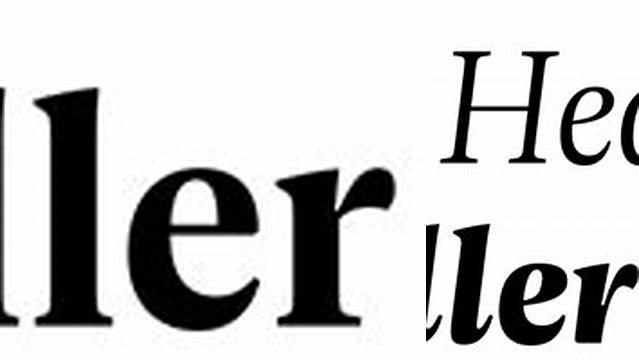
Hey guys, are you on the hunt for a super cool font that's both eye-catching and readable? Look no further because we're diving headfirst into the world of the Geller Headline Semibold font! And the best part? You can get a free download! This article is your ultimate guide to snagging this awesome font, exploring its features, and discovering where it shines. Whether you're a designer, a blogger, or just someone who loves playing around with fonts, this is your one-stop shop. So, buckle up, and let's get started on this font-tastic adventure! We'll cover everything from the nitty-gritty details of the font itself to where to find that free download link. Let's explore the world of typography and see why the Geller Headline Semibold font is a great choice for your creative projects. Ready to level up your design game? Let's do this!
Geller Headline Semibold Font: An Overview
Alright, let's kick things off with a detailed look at the Geller Headline Semibold font. What makes this font so special, and why is it a popular choice among designers? The Geller Headline Semibold is known for its strong presence and clean lines, making it perfect for headlines and titles. Imagine a font that grabs attention instantly but remains easy to read – that's the magic of Geller Headline Semibold! Its semibold weight strikes the perfect balance, not too heavy and not too light, ensuring readability without sacrificing impact. The font's design is modern and versatile, lending itself well to various applications, from website headers to print materials. If you're working on a project that demands a bold statement, the Geller Headline Semibold is your go-to font. You will find it perfect for logo designs, posters, and any other creative endeavor where you want your message to pop. Its versatility and stylish appearance make it a favorite among designers and creatives. The font has a wide range of applications. So, whether you're creating promotional materials, designing a website, or working on personal projects, this font is sure to impress.
Characteristics and Design Elements
Let's dig deeper into the specific design elements that give the Geller Headline Semibold font its unique character. The font features a blend of geometric and humanist influences, creating a design that is both modern and approachable. The Geller Headline Semibold font has a clean and uncluttered appearance, with well-defined letterforms. The clarity of the design makes it highly readable even at a glance. This font's semibold weight provides a balance of impact and readability, making it a great choice for both headlines and body text. The consistent stroke weights contribute to a cohesive and polished look. The spacing and kerning of the font are carefully calibrated to enhance readability and visual appeal. This attention to detail ensures that the text flows smoothly and is easy on the eyes. Its versatile design makes it adaptable to a variety of projects. The design's modern aesthetic and clean lines make it ideal for communicating a message clearly and stylishly. This detailed approach to design ensures that it can be used across a variety of applications. In short, the Geller Headline Semibold font is more than just a font; it's a carefully crafted design that delivers both style and functionality.
Where to Use Geller Headline Semibold
So, where can you actually use the Geller Headline Semibold font to make your projects shine? The answer is: pretty much everywhere! Its versatility makes it ideal for a wide range of applications. This font is perfect for headlines, titles, and subheadings. Imagine creating a website and using this font for your headers. It will give it a professional and clean look. The strong presence of the font also makes it a great choice for branding and logo design. Think about creating a logo for your business and using this font. This will give your brand a distinctive look that’s instantly recognizable. It’s also fantastic for print materials like posters, flyers, and brochures. You can use it to grab attention. From social media graphics to presentations, the possibilities are endless. If you're working on a project that demands attention, this font is your best friend. This font can be used for all kinds of personal projects. Get creative and apply this font to your projects!
Advanced Features of Geller Headline Semibold
Let's dive into some advanced features of the Geller Headline Semibold font, exploring how you can use it to create really cool designs. The font's design is not just about aesthetics; it also includes various technical aspects that can enhance your work. This font typically includes a range of character sets, covering Latin, Cyrillic, and sometimes Greek alphabets. This means that if you are designing for a global audience, this font can be a great option. Many fonts today include OpenType features, such as ligatures and stylistic sets. You can use ligatures to create a more polished look for your text. You can adjust the character spacing and kerning to fine-tune the look of your text. Adjusting the font size is also important. You can use a variety of design software to experiment with the advanced features. You can easily experiment with the font and see what works best for your project. You can create beautiful, professional-looking designs with these advanced features. The font's advanced features can take your design to the next level!
Kerning and Spacing Tips
Okay, guys, let's talk about kerning and spacing – two crucial aspects that can seriously elevate your use of the Geller Headline Semibold font! Kerning refers to the adjustment of space between individual letters. Spacing, on the other hand, relates to the overall space between words. When using the Geller Headline Semibold, pay close attention to how the letters flow together, especially in headlines. Some letter combinations might need a bit of tweaking to look balanced and visually appealing. Kerning can prevent awkward gaps. You can adjust the spacing to enhance readability. Experiment with small adjustments to see how they affect the overall look. Different design software will have different kerning and spacing tools. You can get a feel for how the font works by practicing. You can create polished, professional-looking designs with these tips! By mastering kerning and spacing, you can create visually stunning designs that are easy to read.
Using Ligatures and Alternate Glyphs
Alright, let's explore how to use ligatures and alternate glyphs in the Geller Headline Semibold font! Ligatures are special characters where two or more letters are joined together to create a more refined look. If the font includes ligatures, you can use them to enhance the visual appeal of your text. Alternate glyphs can give your design a unique touch. Alternate glyphs are additional designs of characters. If the font includes alternate glyphs, you can access them in your design software. Different design software will provide different ways to use ligatures and alternate glyphs. The use of ligatures and alternate glyphs can add a polished look. You can give your designs a distinctive character. These features will make your design more visually appealing and unique. By mastering the use of ligatures and alternate glyphs, you can take your designs to the next level.
Conclusion: Leveraging Geller Headline Semibold in Your Designs
Alright, guys, we've covered a ton of ground today, exploring the fantastic Geller Headline Semibold font! We looked at everything from its design features and where to get it for free download, to advanced techniques and alternatives. This font has a lot to offer. If you're looking for a font that's both eye-catching and versatile, you have found it. With a little bit of practice, you can use this font to make your designs amazing. This font can transform your projects. Don't be afraid to experiment with this font! Let your creativity run wild! Happy designing, everyone!